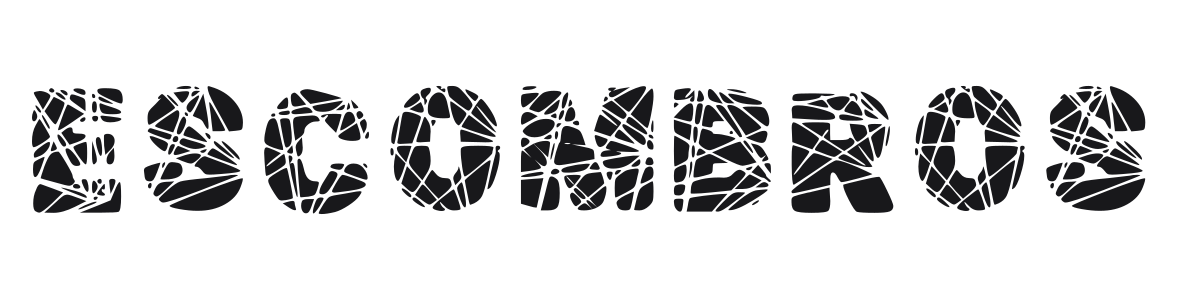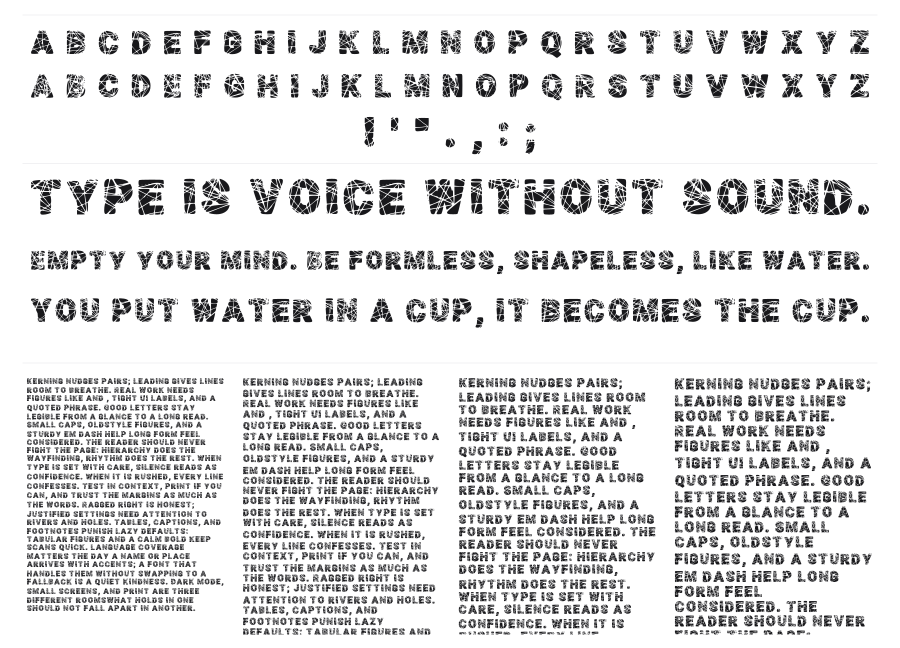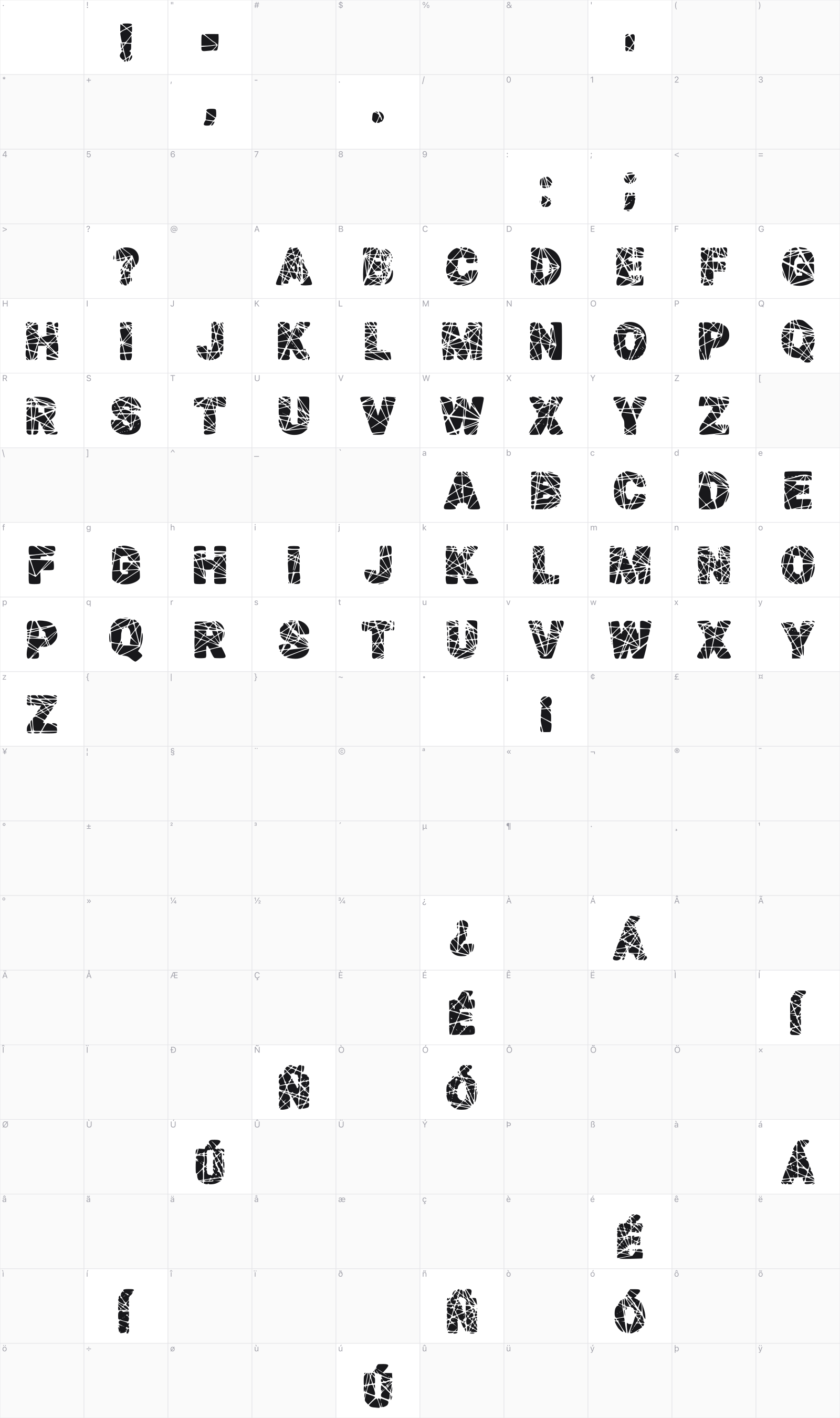
Escombros
Escombros is a heavy display face where every character looks like it has been shattered from the inside out. A dense web of triangular cracks cuts through blocky, condensed forms, turning familiar letters into rubble-like compositions. It carries immediate visual impact for posters, album covers, or anywhere a sense of destruction is the point.